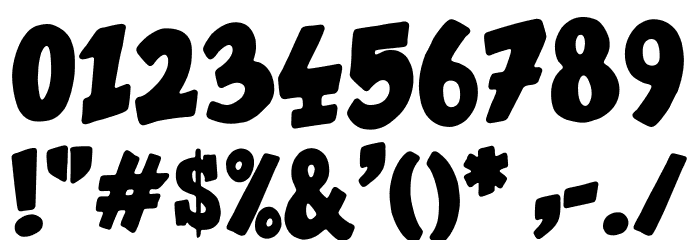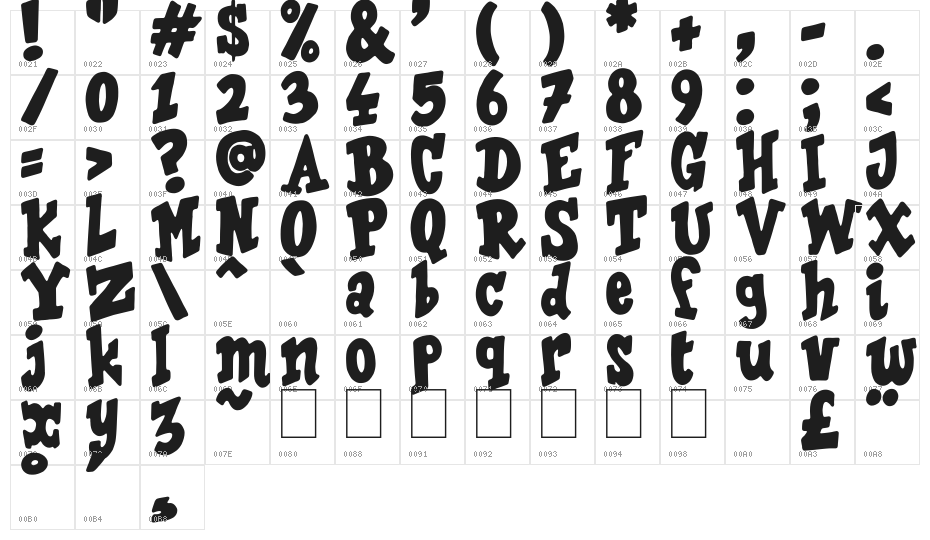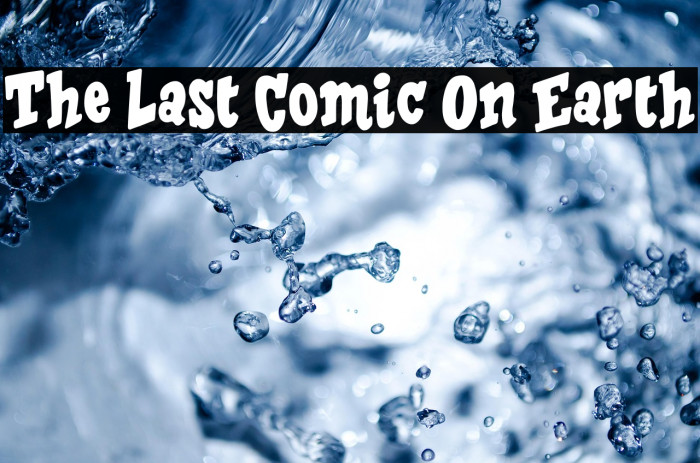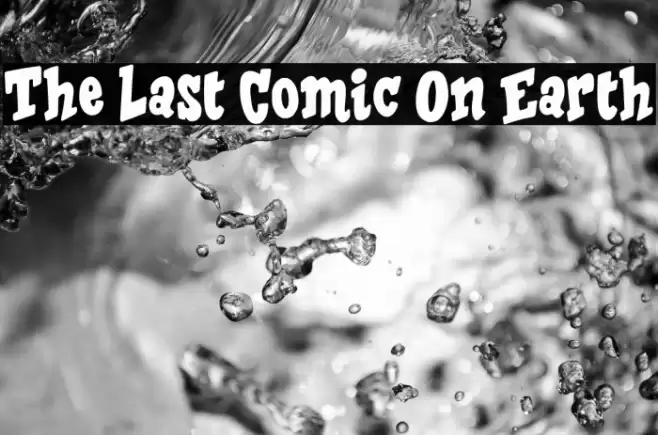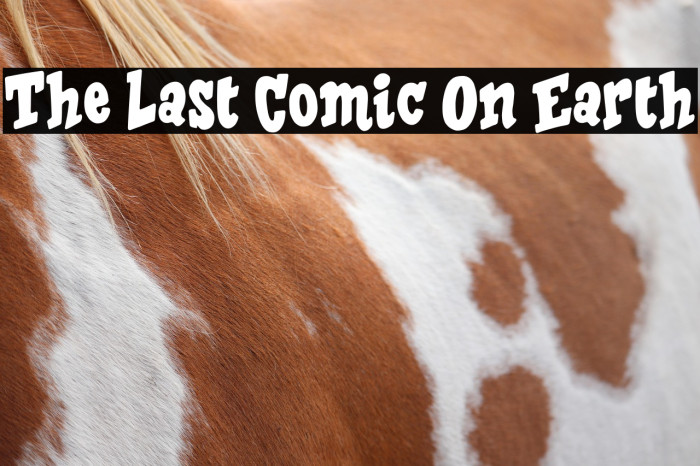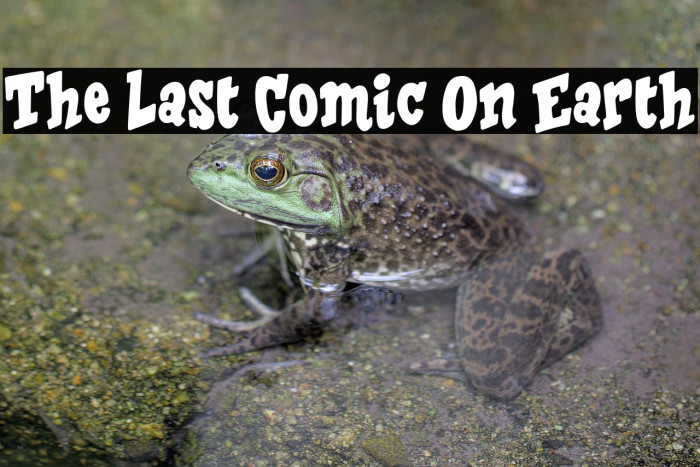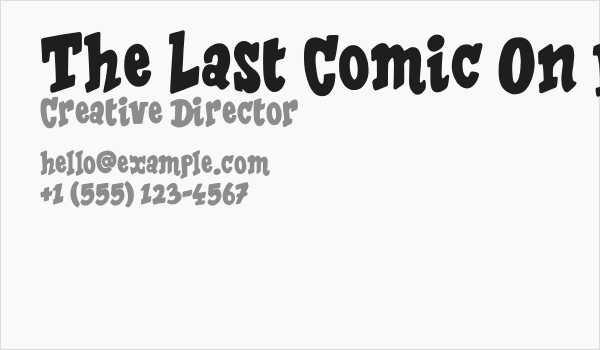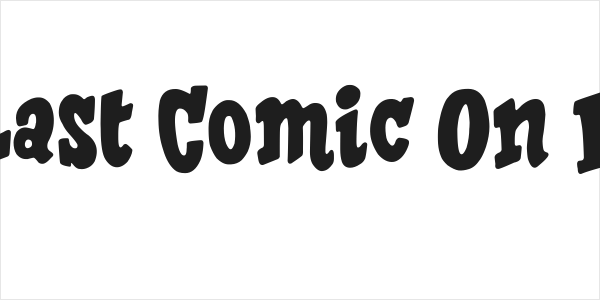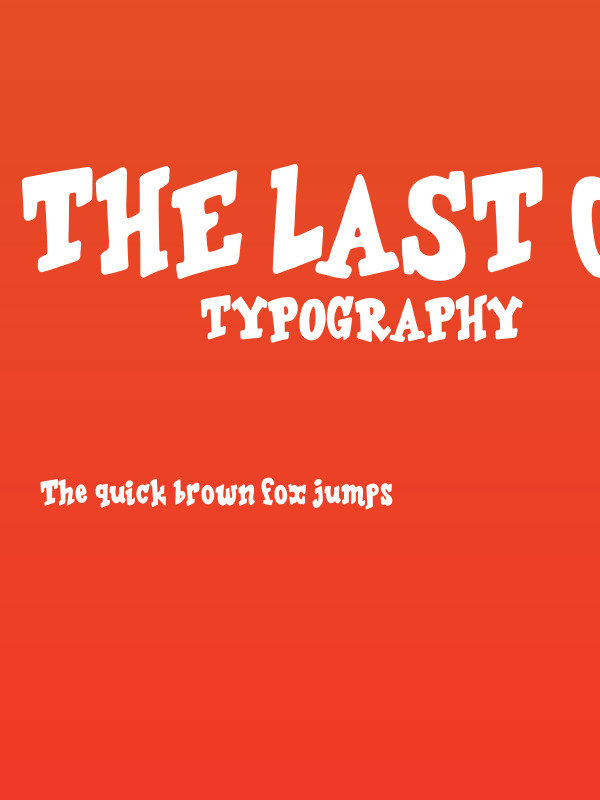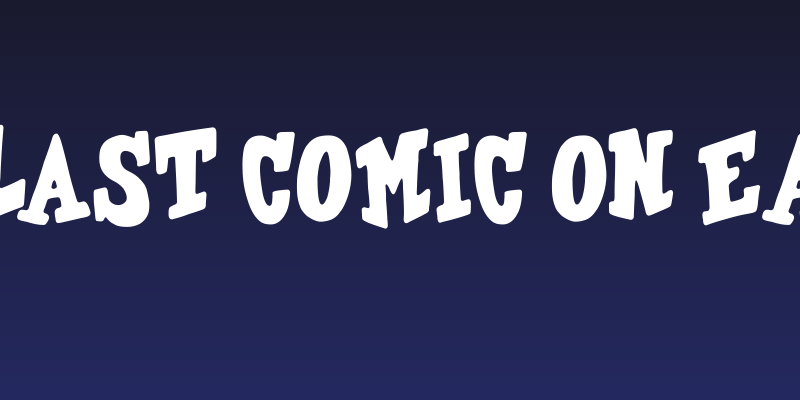
The Last Comic On Earth Font
The Last Comic On Earth Description
This font exudes a playful and bold character, with its thick, uneven strokes and whimsical design. The letters have a cartoonish flair, featuring exaggerated curves and a slightly irregular baseline that adds to its lively appearance. The uppercase and lowercase letters maintain a consistent style, with rounded edges and a sense of movement. Numbers and special characters follow the same playful theme, making it ideal for projects that require a fun and engaging visual element. The font's unique style makes it stand out, perfect for capturing attention in creative designs.
| Overall Style | Playful, Cartoonish |
| Proposed Projects | Ideal for comic books, children's books, playful branding, posters, and event invitations. |